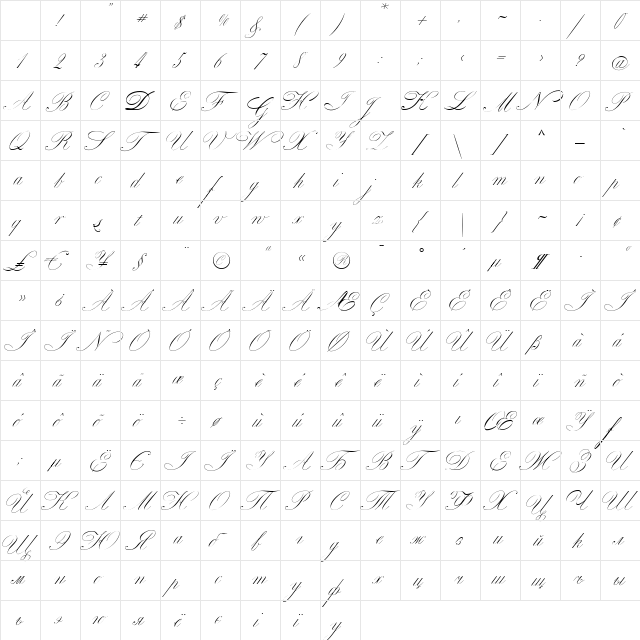
Complete Venski sad One Medium glyph index. Displaying only characters natively supported by Venski sad One Medium font.
Venski sad One is a composed and adaptable typeface that performs quietly and consistently across a wide range of design contexts.